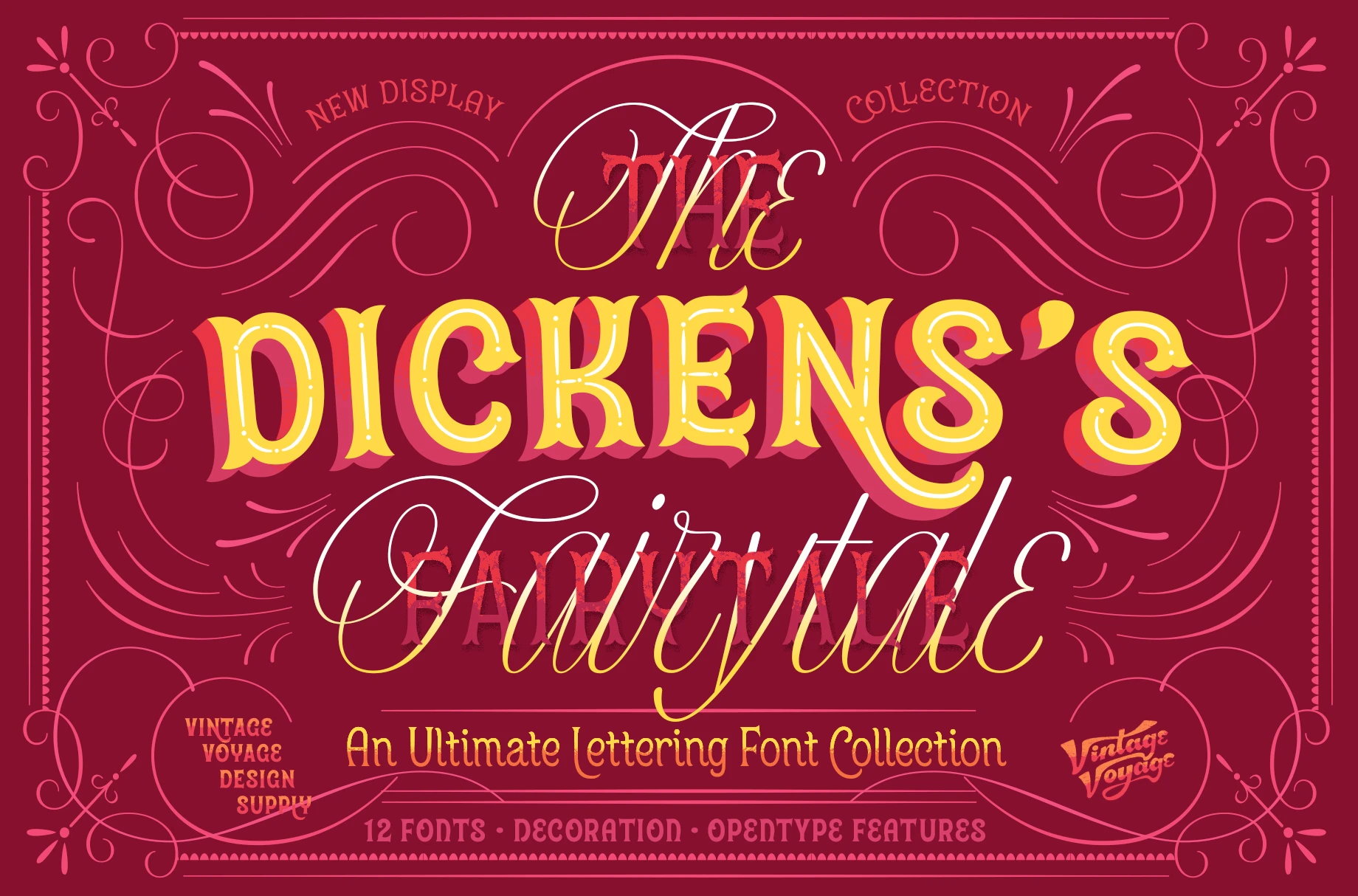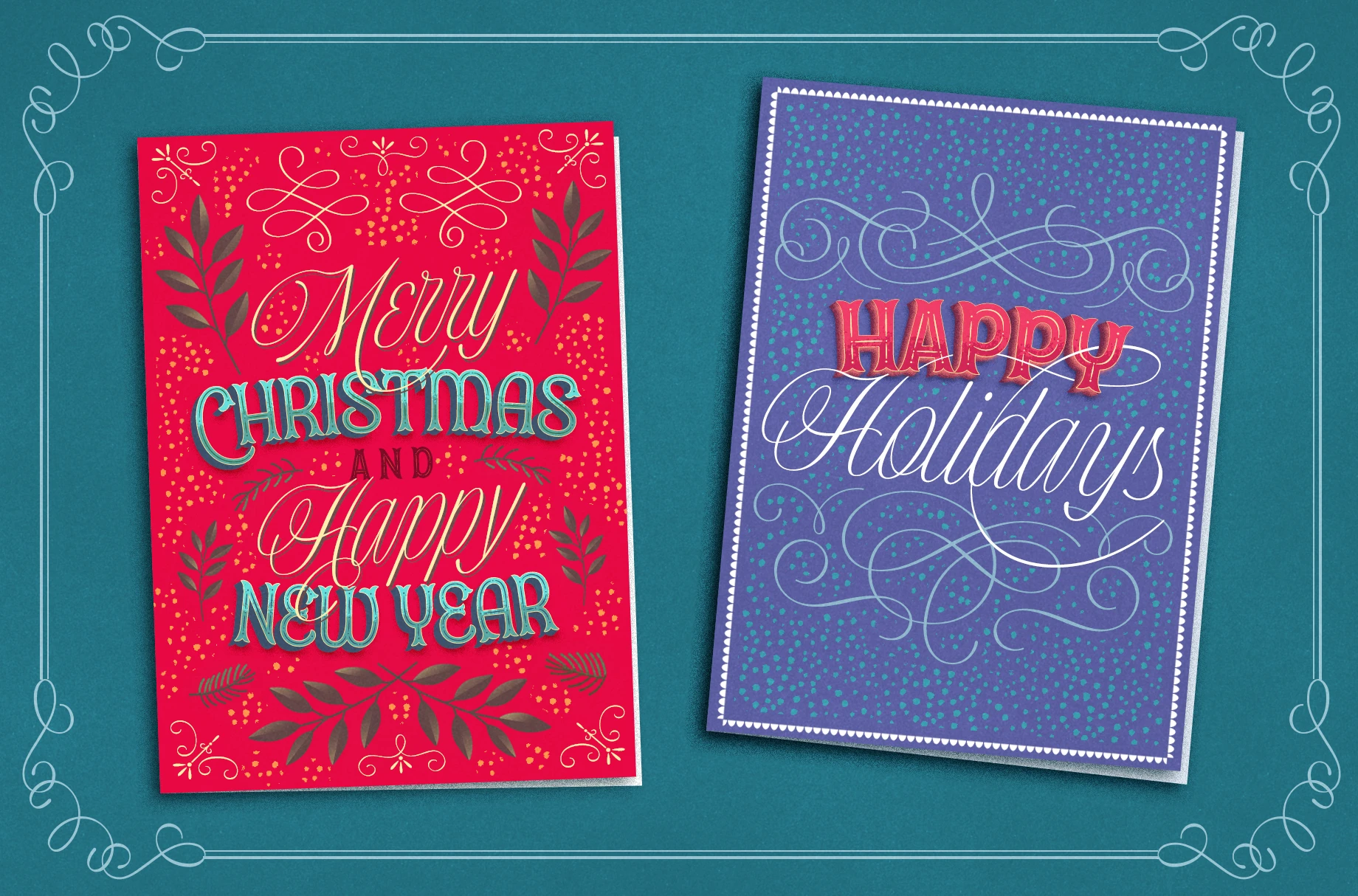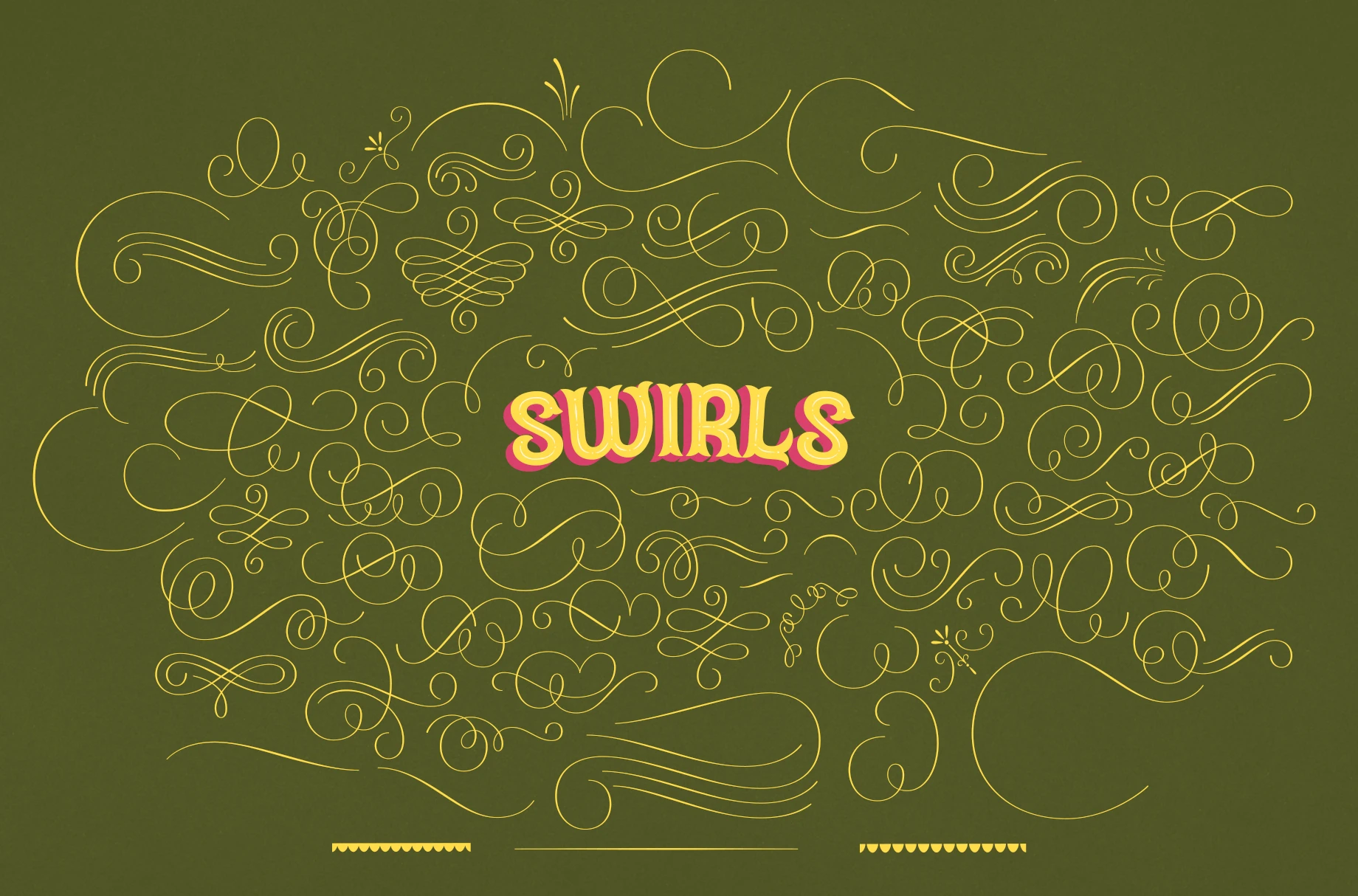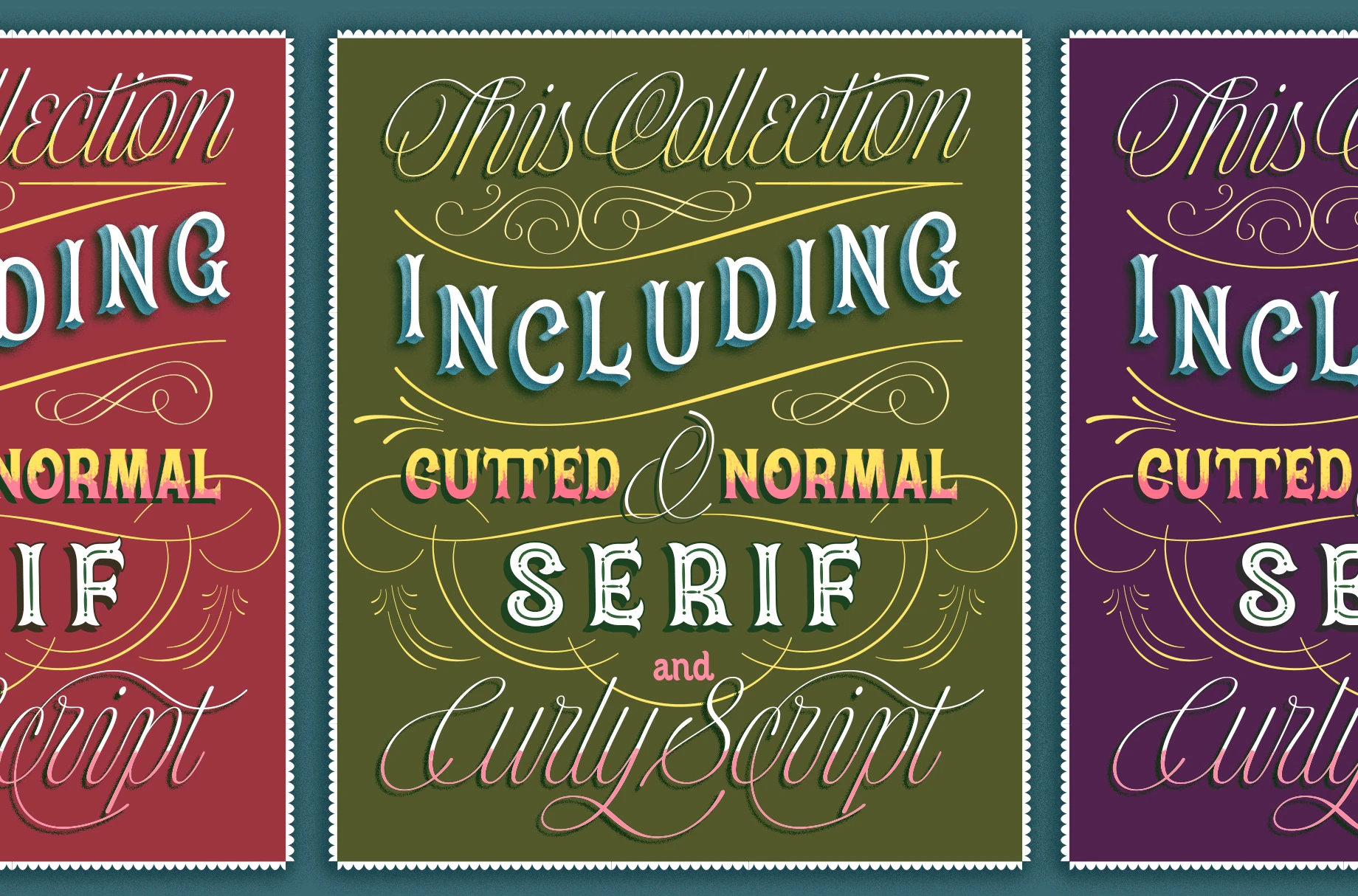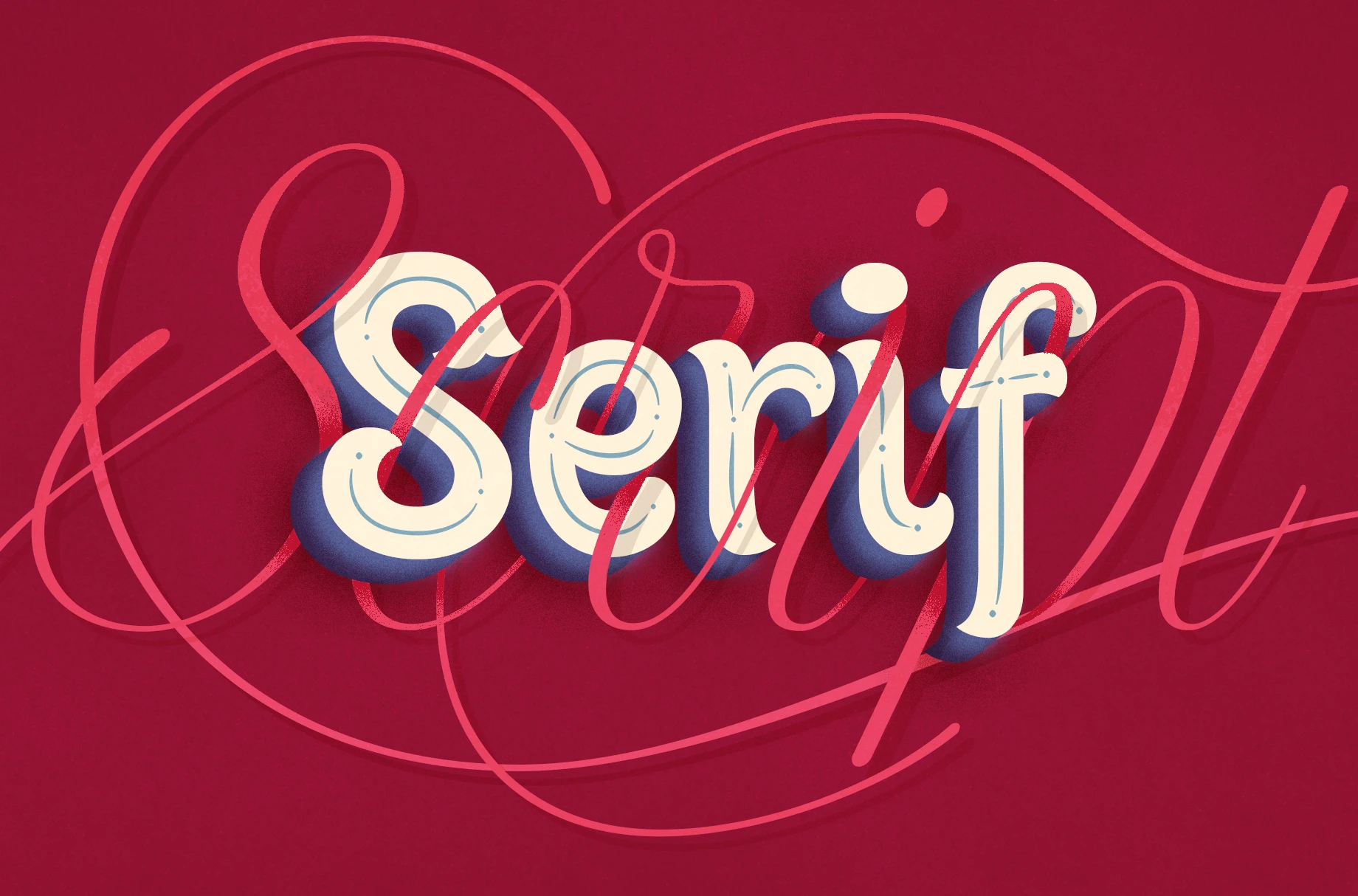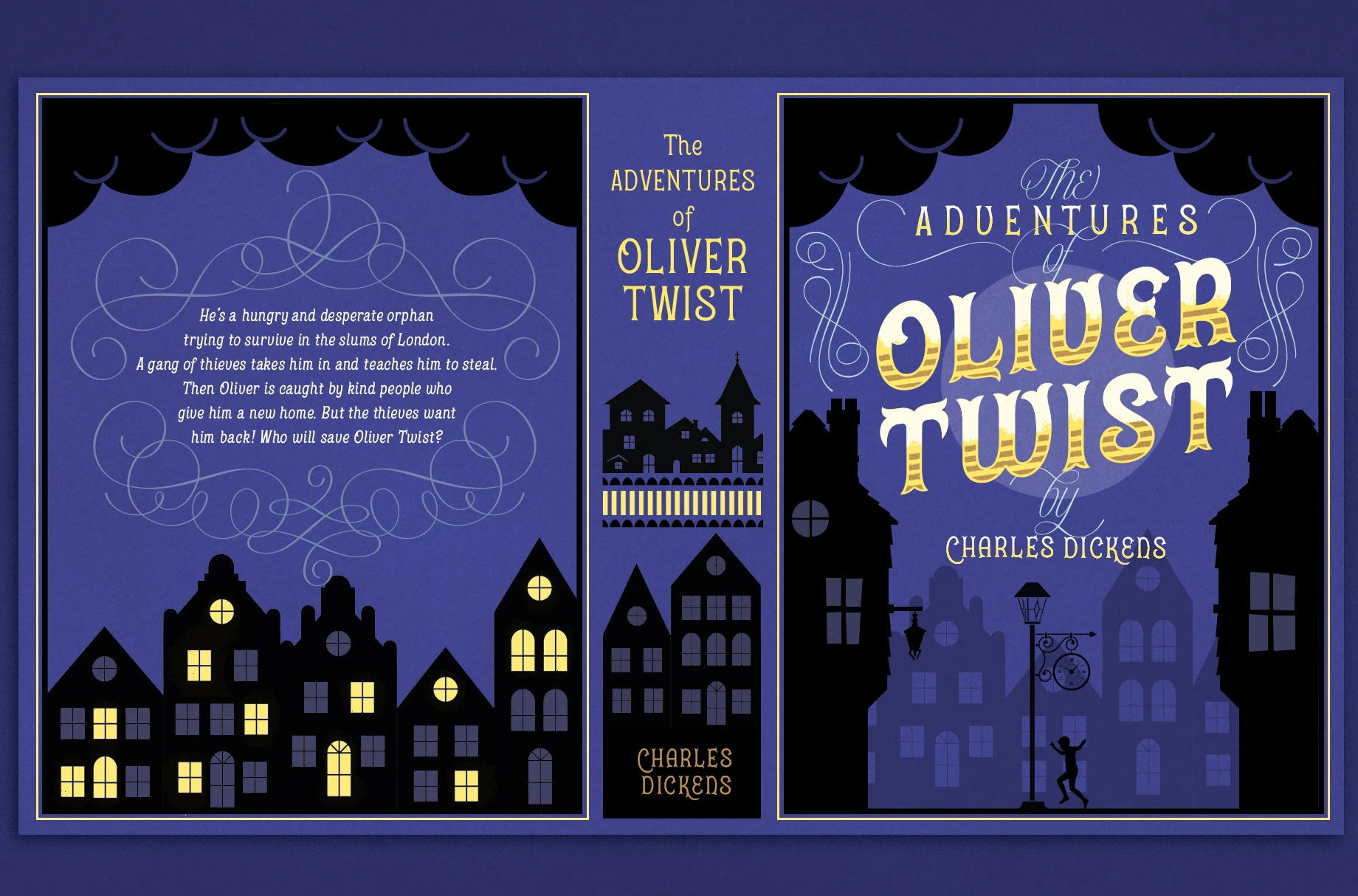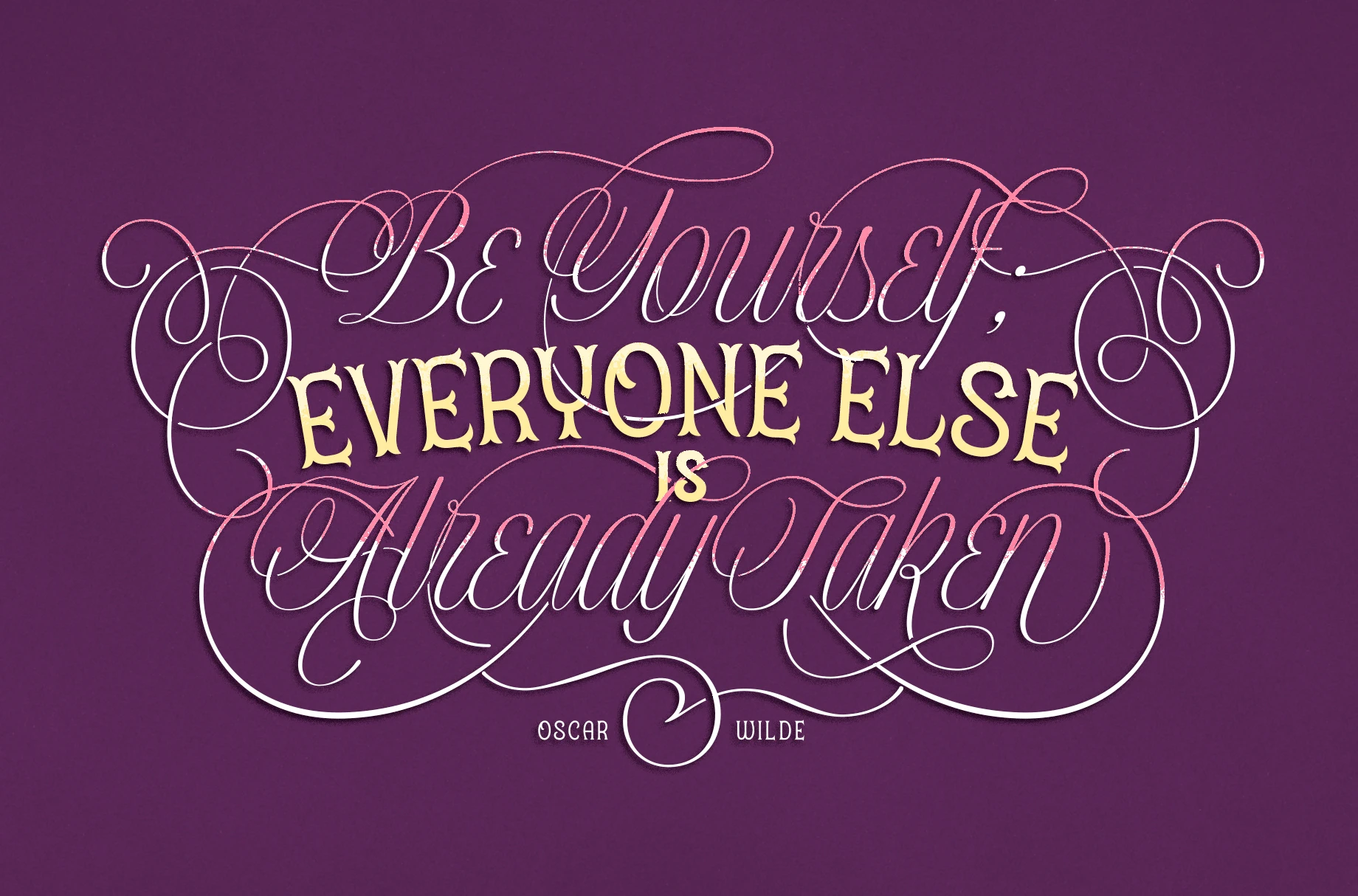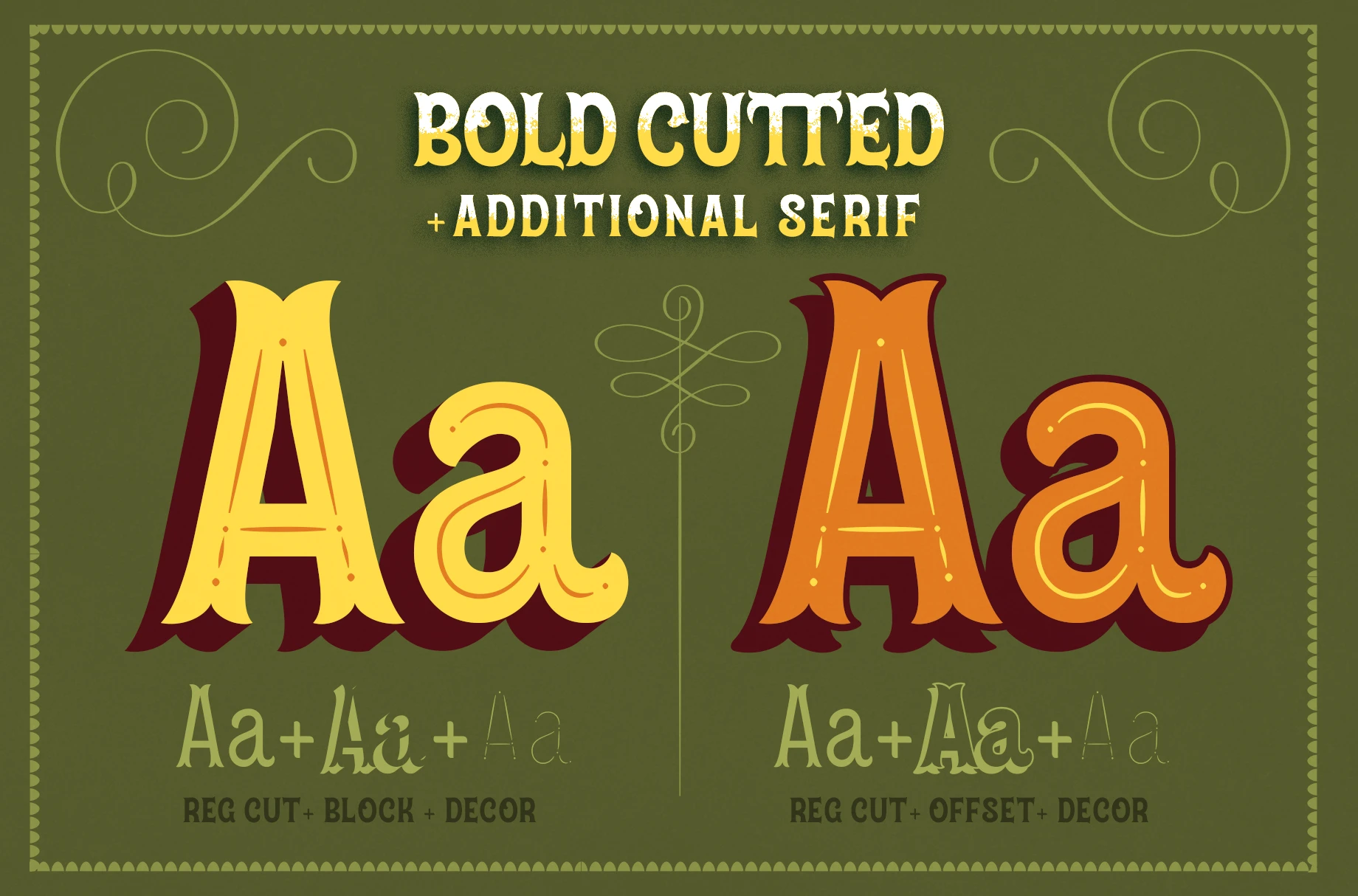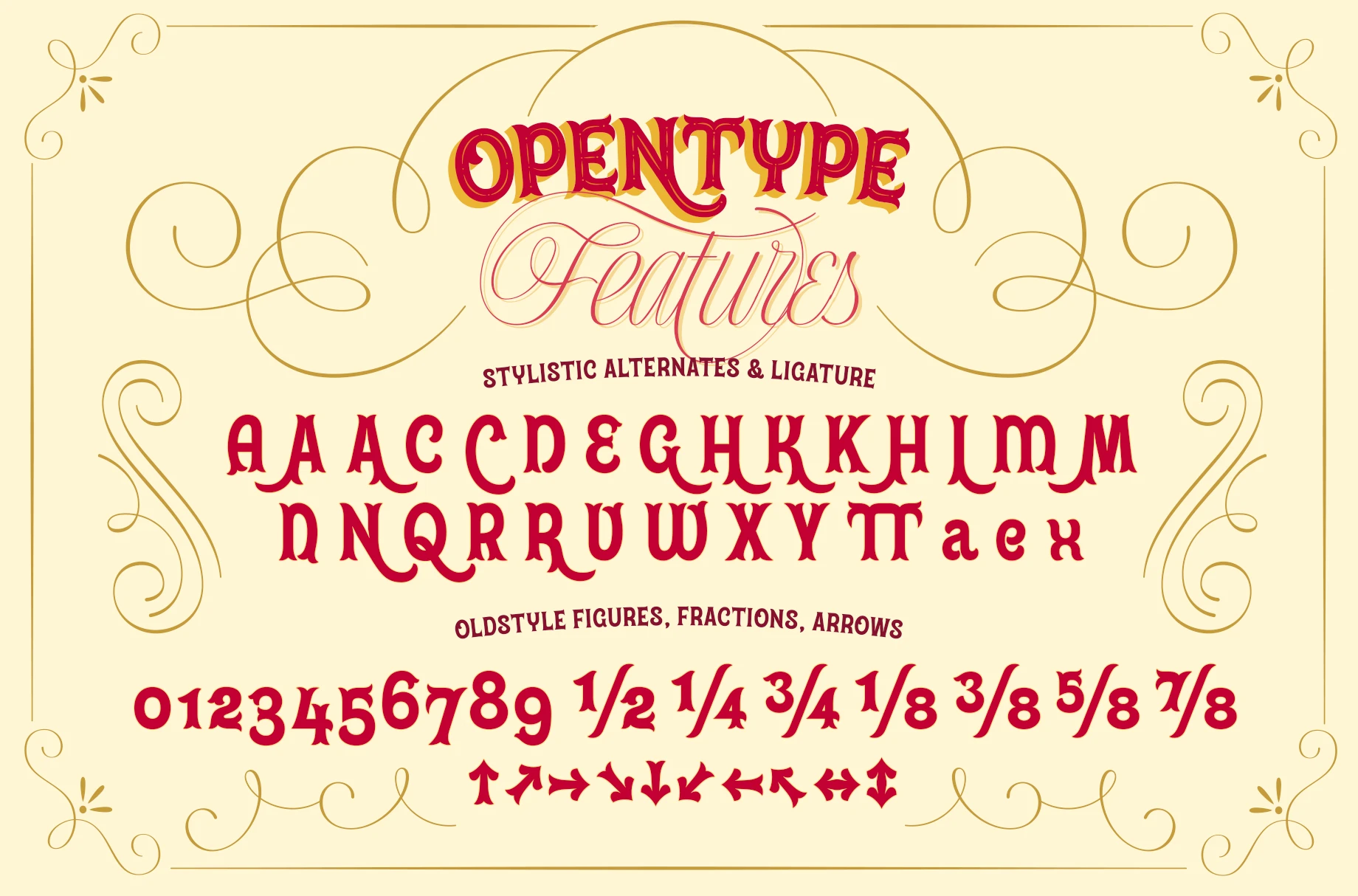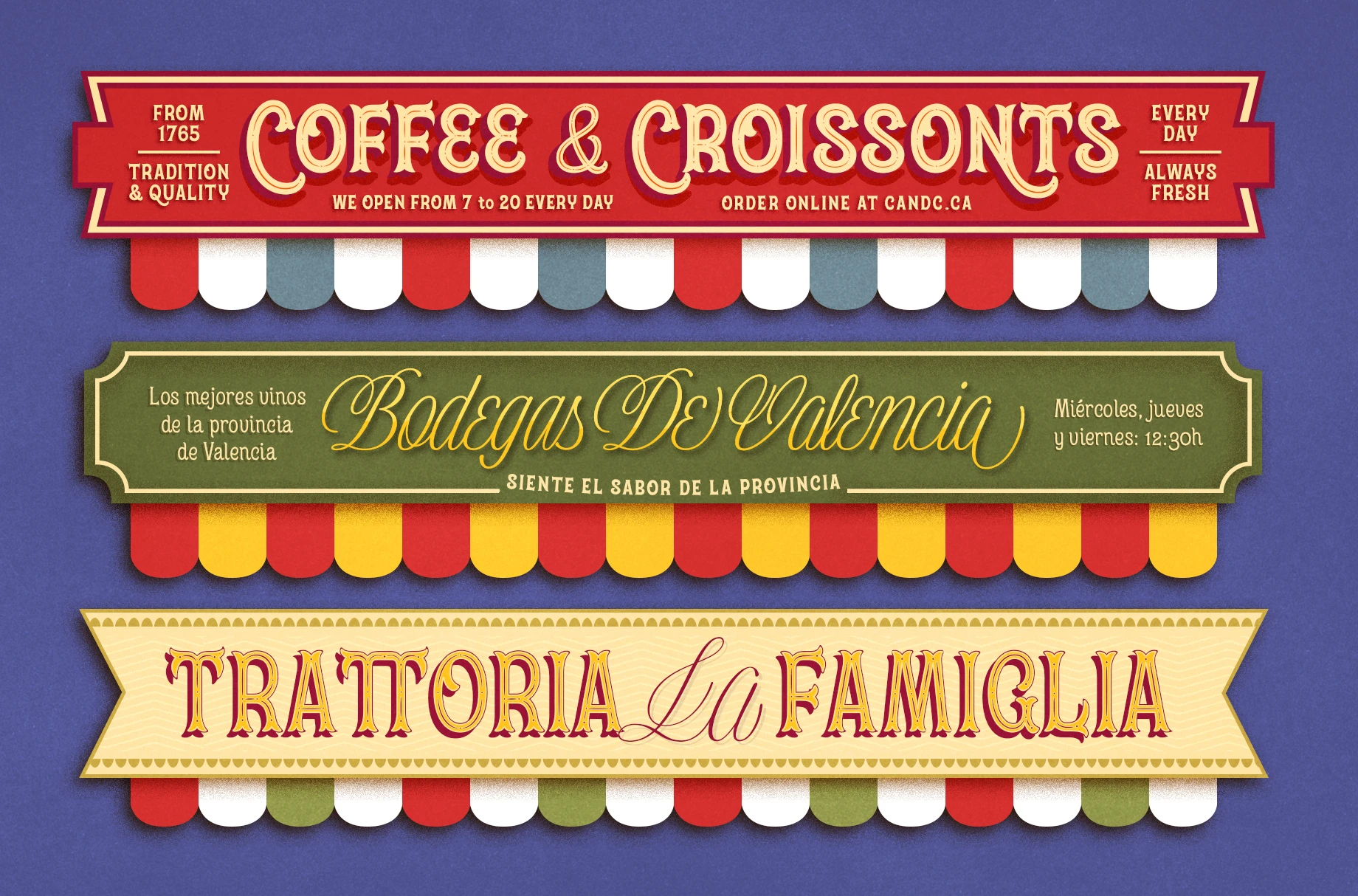
Dickens Tale Font Family
The Dickens’s Fairytale is a classic font duo designed to capture the warmth and nostalgia of the holiday season. It channels the spirit of vintage book covers, traditional carols, and timeless Christmas tales. Inspired by 19th- and 20th-century literary design, it blends old-world elegance with festive charm.
This pairing works beautifully for holiday branding, packaging, invitations, seasonal marketing, and storytelling visuals. With its rich character and vintage flair, it adds depth and atmosphere to posters, logos, cards, and editorial layouts. A perfect choice for projects that call for a touch of tradition and seasonal magic.
• Common Ligatures
• Fractions
• Lining Numerals
• Old Style Numerals
• Stylistic Sets